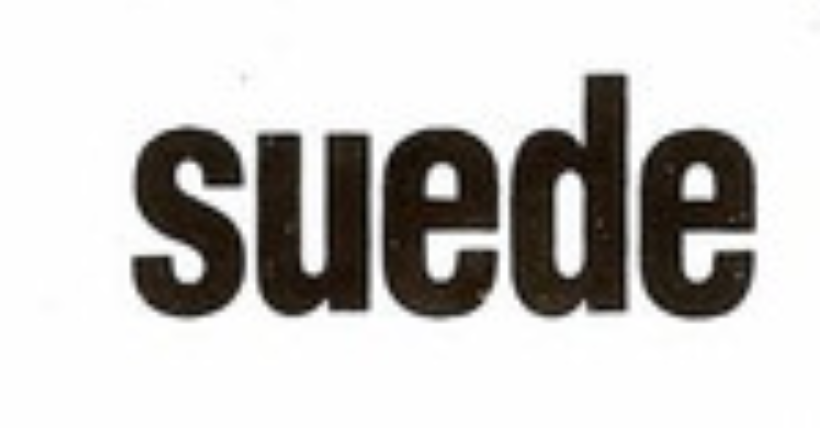
It’s hard to be exact with these generic letters. But it looks like a Neue Helvetica Condensed Bold slightly further artificially condensed. Try typefaces as Impact, Compacta, Akzidenz Grotesk Condensed etc., too …
I'll take it a step further to suggest that it might be BItstream’s version of Helvetica, Swiss 721 Black Condensed.